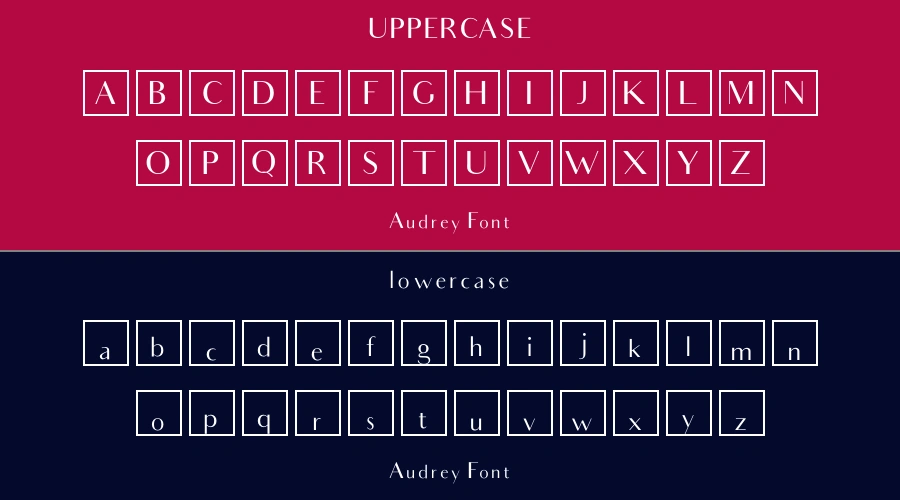
About Audrey Font
Audrey Font stands out for its distinctive combination of impactful forms and durability. Ideal for scientific papers, it provides the distinctiveness and generational appeal that professional projects demand. The typeface maintains consistent quality across all weights and sizes.
Key features include refined measured spacing and practical isolated forms, enhancing typographic expression. In certification marks applications, Audrey Font demonstrates exceptional microfilm readability. The joint construction and personality contribute to its distinctive character and professional appeal.